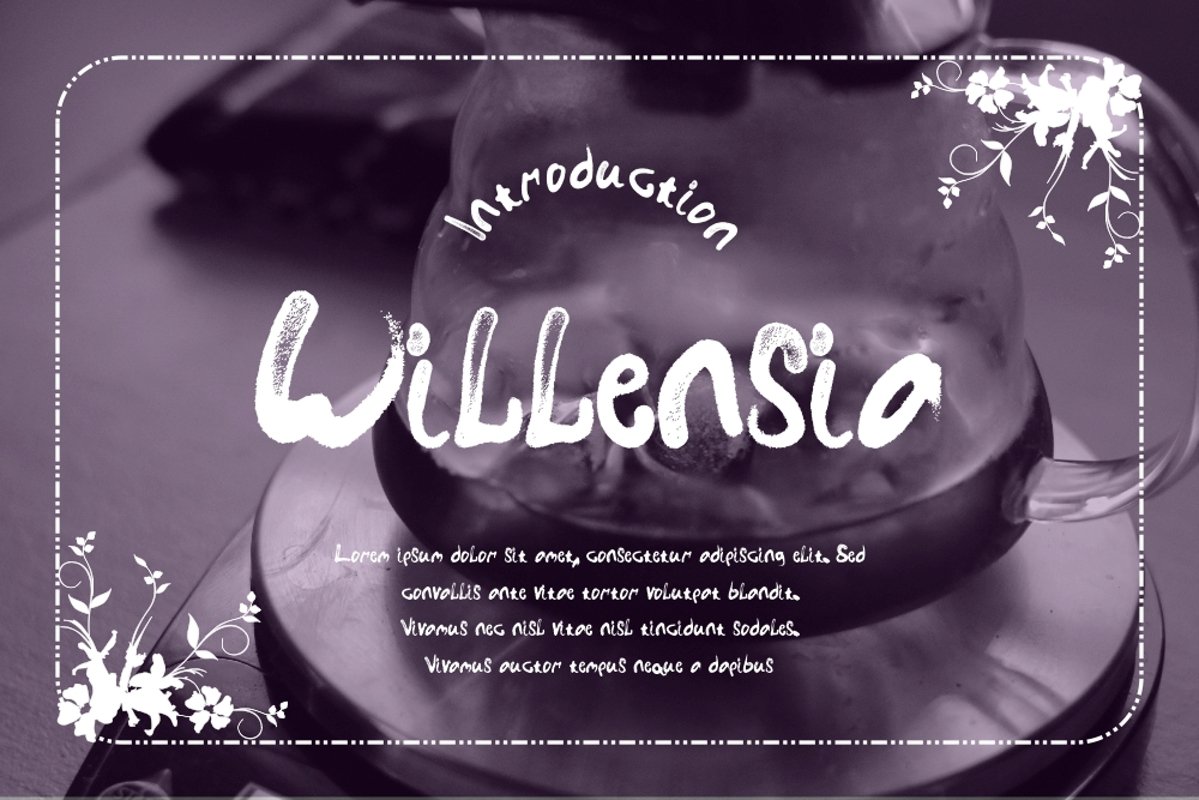
Willensia
Willensia Typeface is a brush type. It suitable for any vintage type needs and more Happy creating.Very suitable for you who do exploration